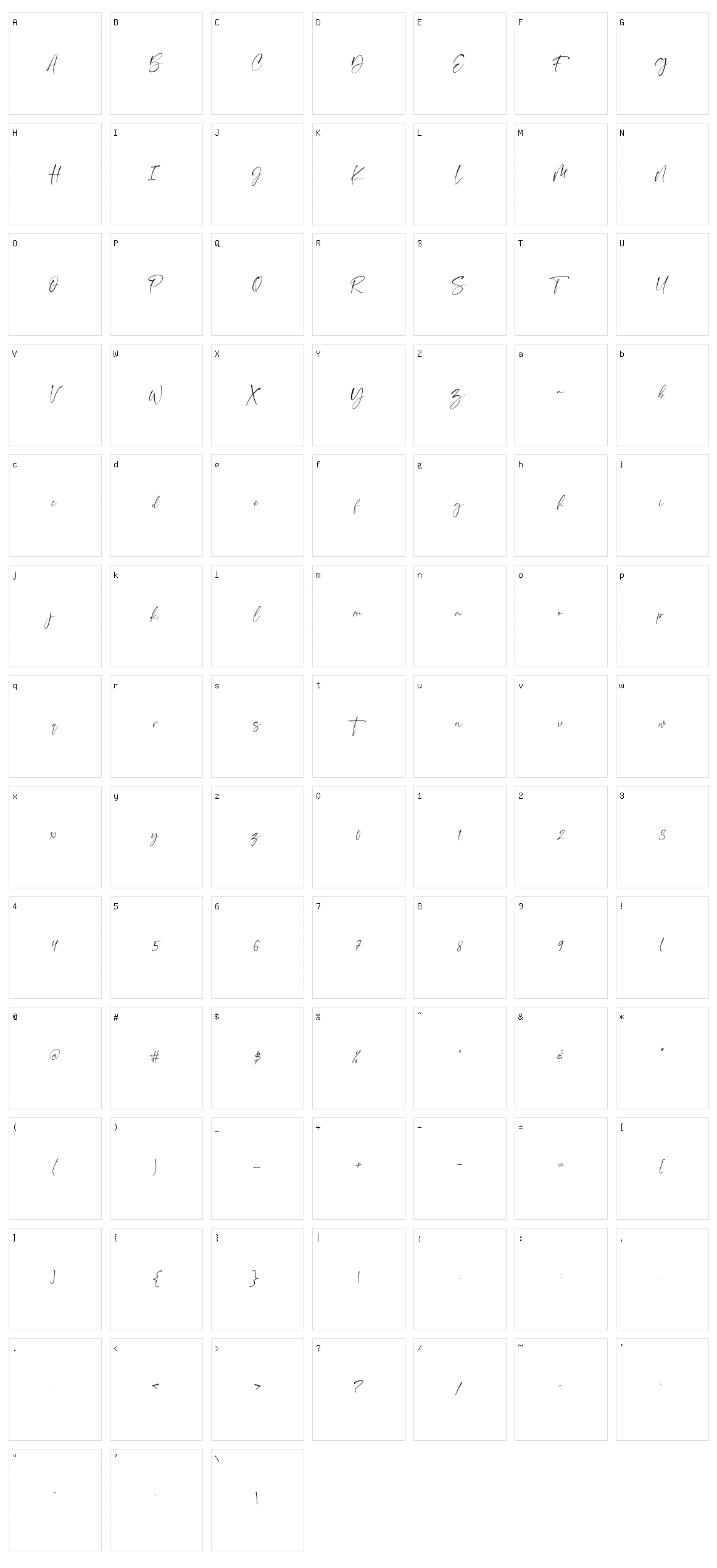
The free font Hasta la vista is carefully designed by Gilar Studio, showcasing a thoughtful balance of creativity and usability and falls under the Script font style. When you download the ZIP file, it contains only 21.19 KB of font files, making it lightweight and quick to download. Please review the license details below to understand permitted usage and distribution rights. If license information is not available, we recommend using this font for personal projects only or contacting the author directly for commercial usage permissions.